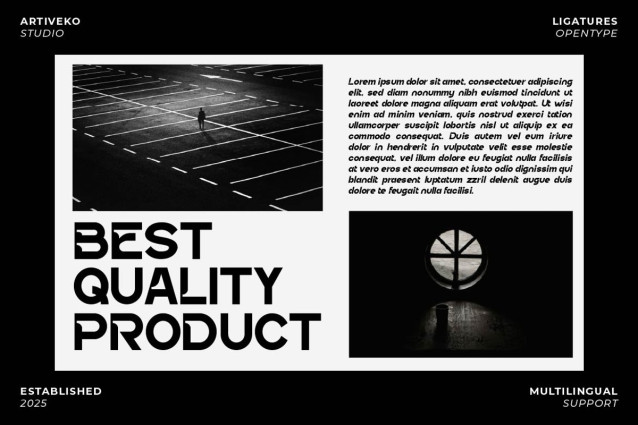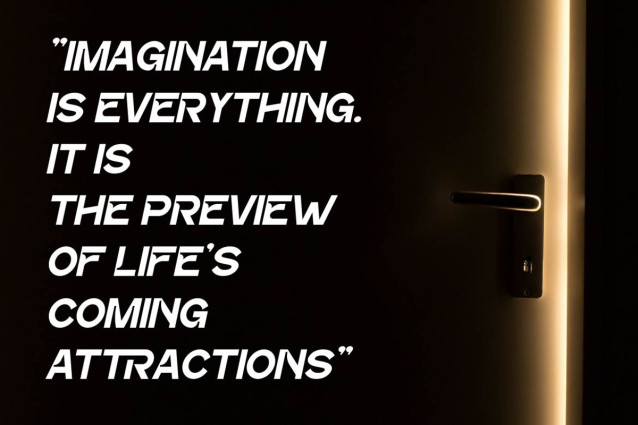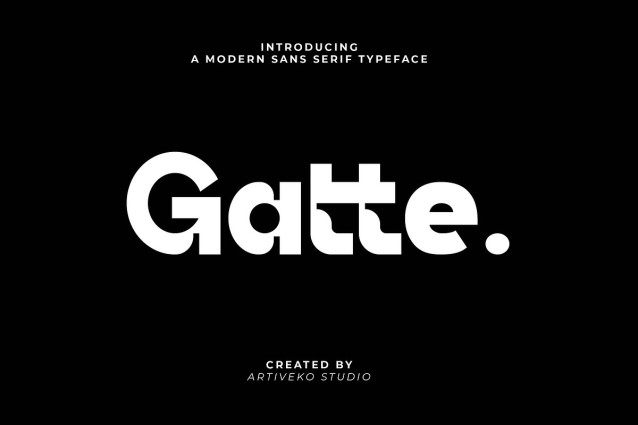
Gatte Font
Gatte Font is a refined sans serif font that blends modern simplicity with timeless elegance. Featuring clean geometry, smooth curves, and well-balanced proportions, Gatte is ideal for branding, luxury packaging, editorial layouts, website headers, and social media graphics that require a sophisticated yet versatile style.
This fonts are great for product logo,wedding card logo, clothing brand logo, Vintage design and much more.